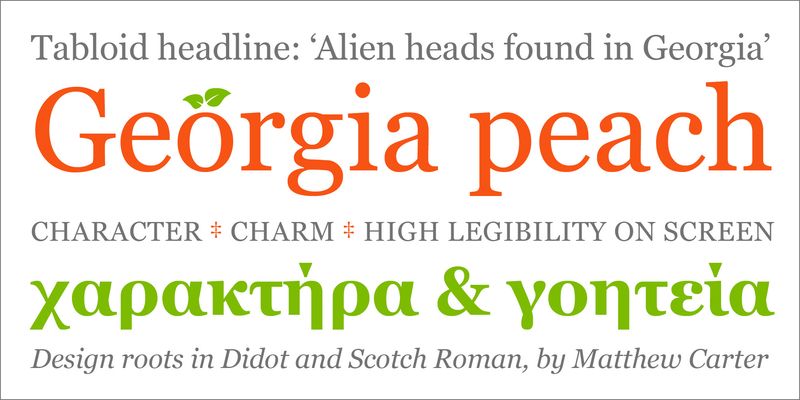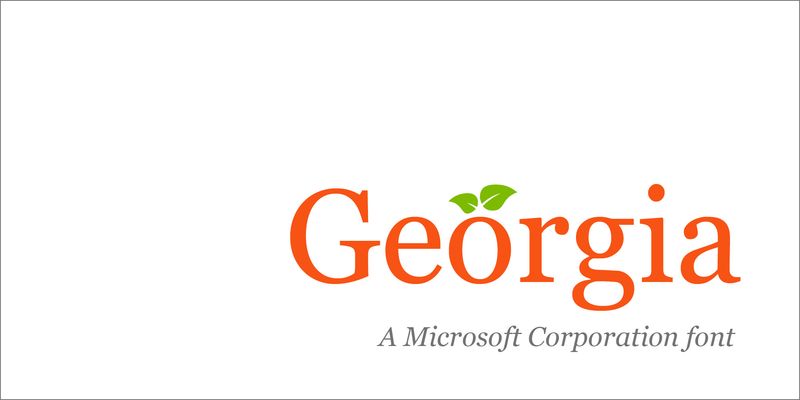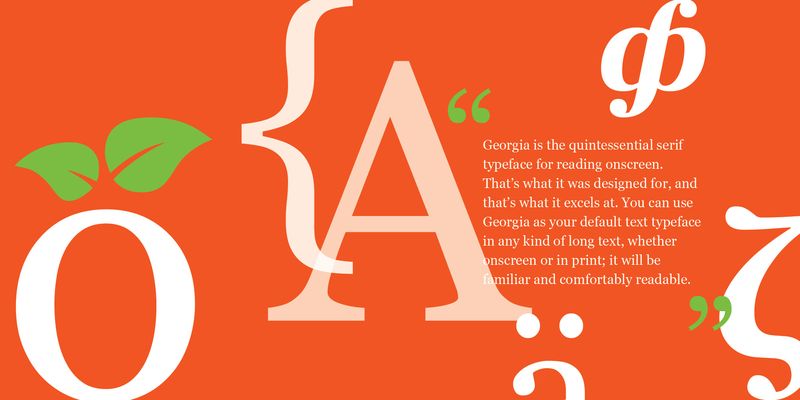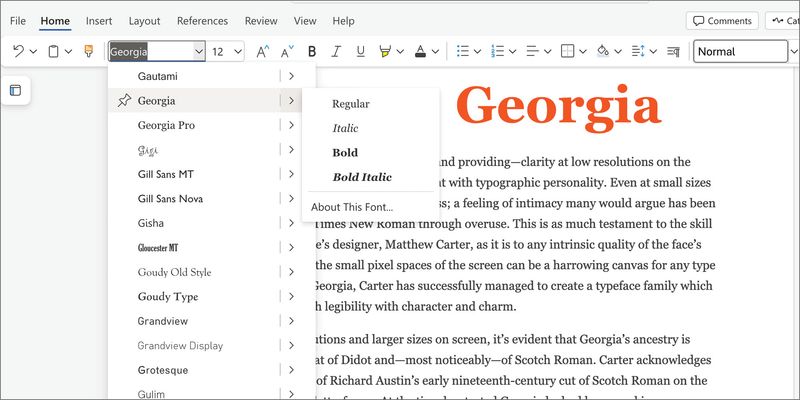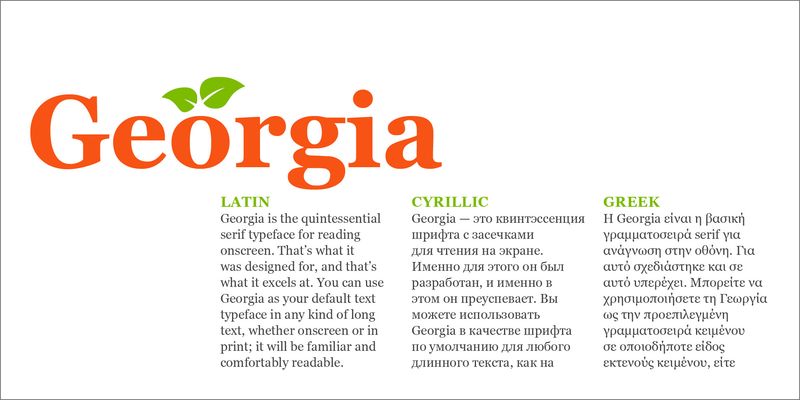
Georgia is the quintessential serif typeface for reading onscreen. That’s what it was designed for, and that’s what it excels at. You can use Georgia as your default text typeface in any kind of long text, whether onscreen or in print; it will be familiar and comfortably readable. The font’s default numerals are “old-style” (like lowercase letters), which look good in text but might be surprising in a spreadsheet.
Type designer Matthew Carter created Georgia in 1996 to make reading on low-resolution screens easy and acceptable. It is related to his text typeface Miller, which is very popular in print publications, and which shares the same roots in the 19th-century text typefaces known as Scotch Roman. Georgia manages to accommodate a host of limitations presented by 1990s screen technology, yet the designer’s skill is such that you’d never notice any compromises in the design. Georgia has become one of the most common typefaces used on the web.
In 2011 Georgia was expanded into a larger family, Georgia Pro, with more typographic features, additional weights, and a set of narrower Condensed variants.